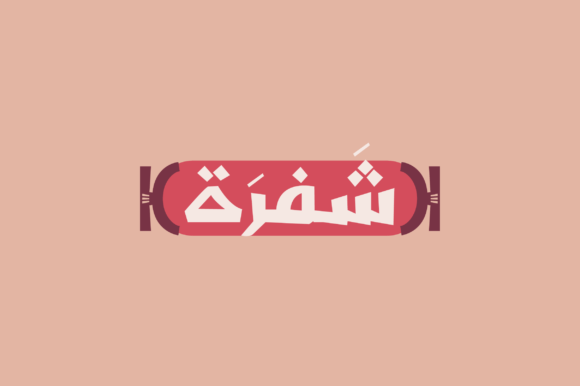
Behold Shafrah, the majestic display font that transports you to the enigmatic era of Ancient Egypt. Inspired by the sacred hieroglyphs that once adorned the pyramids and temples, Shafrah captures the essence and grandeur of this ancient civilization.
Immerse yourself in the rich history and captivating beauty of hieroglyphics, a language that narrates tales of gods, goddesses, and timeless legends. Shafrah brings this ancient script to life, echoing its eloquence in a modern digital form.
Designed by the esteemed Mostafa El Abasiry, Shafrah is an Arabic font that exudes elegance and sophistication. Its intricate lines and captivating curves evoke the mystic aura of ancient Egypt, inviting you on a journey into the heart of this iconic civilization.
Versatile and adaptable, Shafrah empowers you to create designs that captivate and inspire. Its wide array of applications includes advertising, web design, and social media, where it commands attention and leaves a lasting impression. Unleash your creativity and elevate your designs with this extraordinary font.
Enter the world of Shafrah, a realm where creativity knows no bounds. Let your imagination soar as you craft logos that exude timeless elegance or social media graphics that demand attention. Explore the realm of web design, where Shafrah transforms your website into a visual masterpiece.
Embrace the allure of Shafrah, the font that enchants and enraptures. Let its hieroglyphic charm infuse your designs with a touch of mystery and allure.